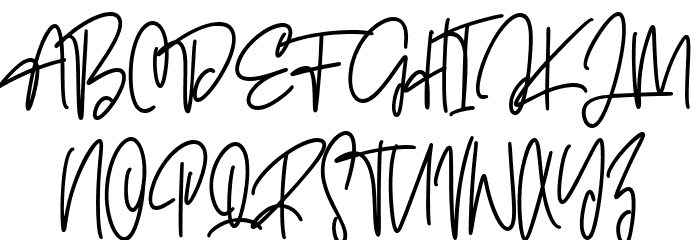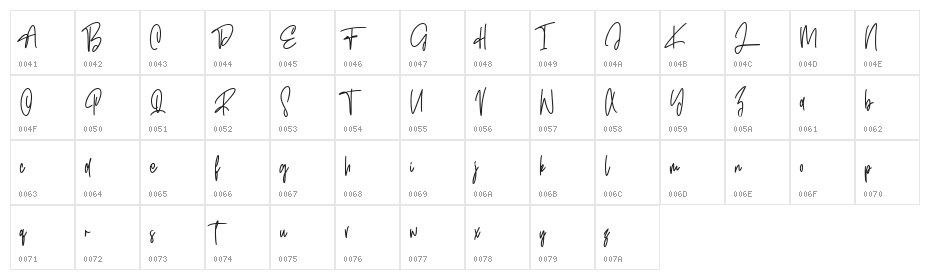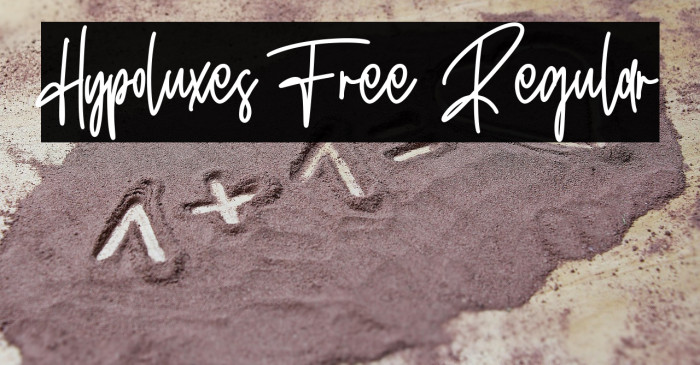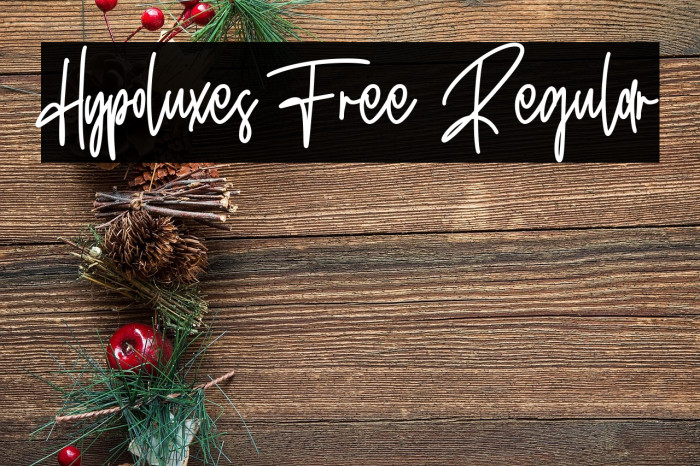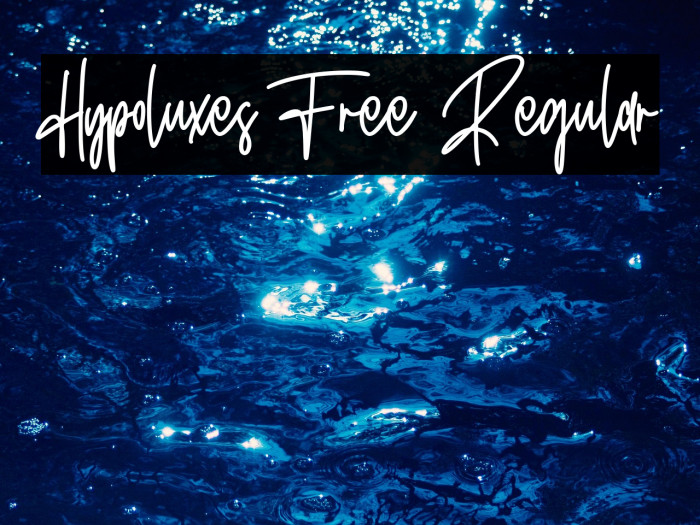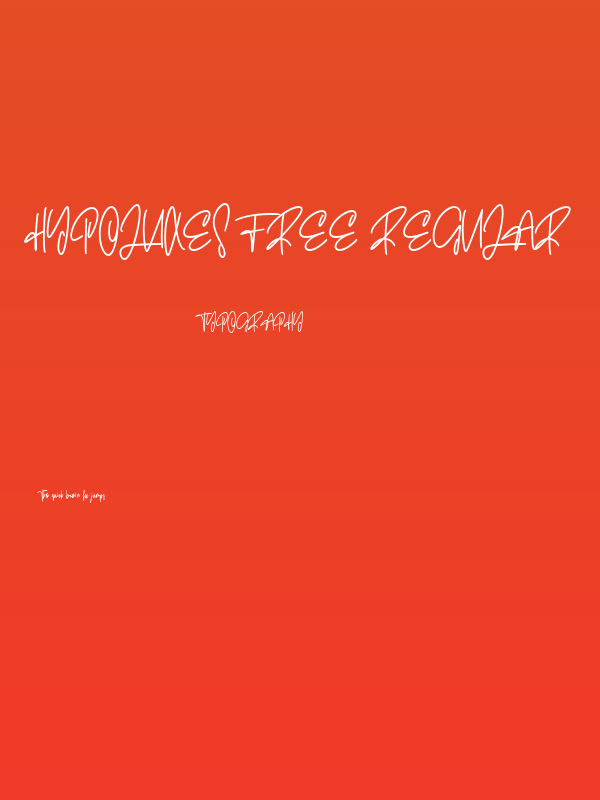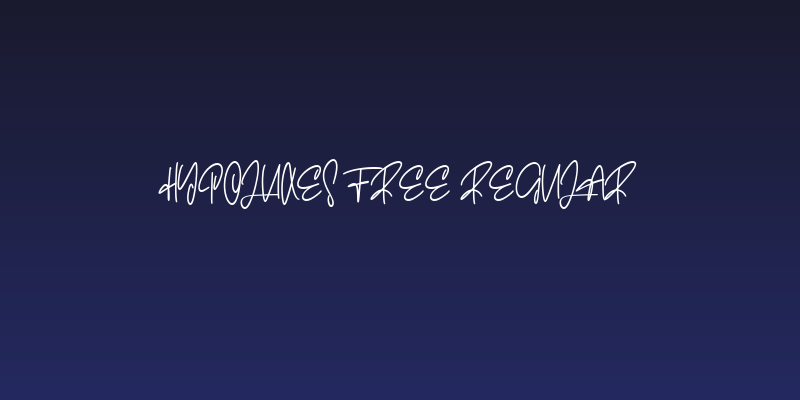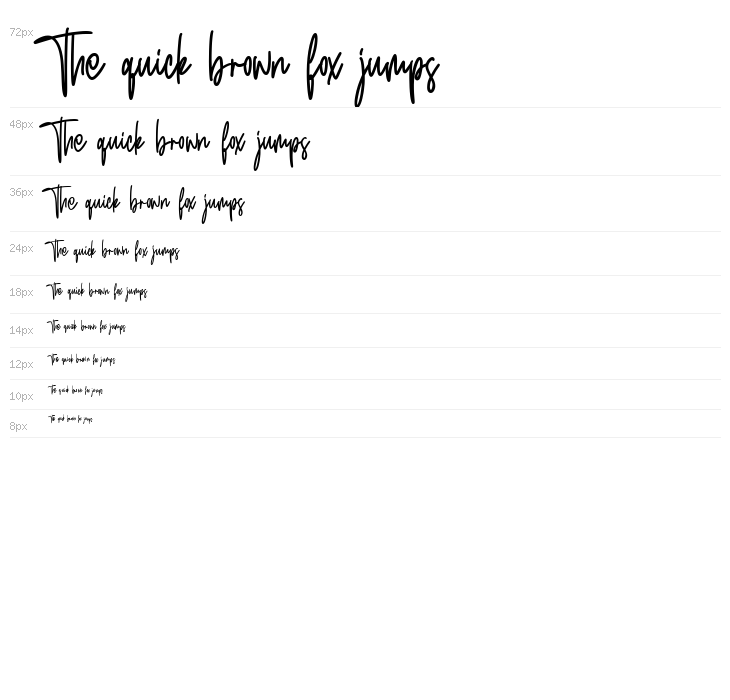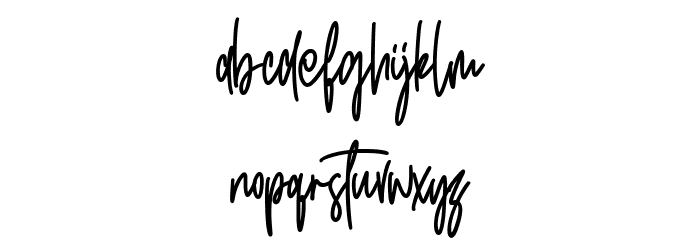
Hypoluxes Free Regular Font
Hypoluxes Free Regular Description
This font features a dynamic and expressive handwritten style, characterized by its fluid and flowing letterforms. The uppercase letters are bold and prominent, while the lowercase letters maintain a consistent, elegant script. The overall appearance is casual yet sophisticated, making it suitable for a variety of creative projects. The characters are slightly slanted, adding to the handwritten feel, and the strokes vary in thickness, providing a natural and organic look. The font includes a full set of uppercase and lowercase letters, numbers, and a selection of special characters, allowing for versatile use in different contexts.
| Proposed Projects | Ideal for wedding invitations, greeting cards, branding projects, and social media graphics. |